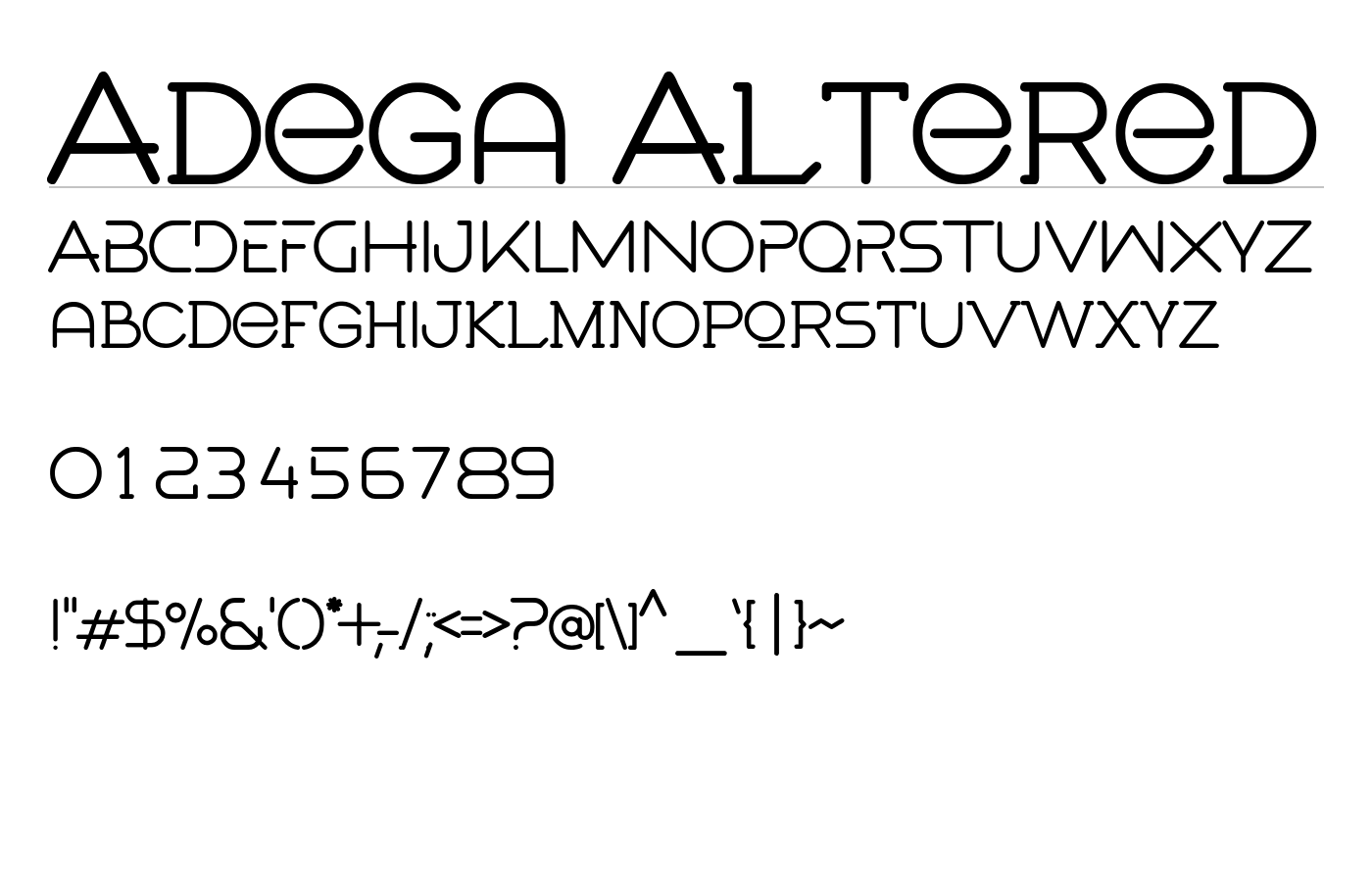
Adega Altered is a sleek, modern sans serif font characterized by its geometric shapes and thin, consistent strokes. The font features an open, airy design with unique letterforms that combine sharp angles and smooth curves, giving it a contemporary and elegant feel. Ideal for stylish logos, editorial headlines, and creative branding, Adega Altered adds a distinctive, refined touch to any design that seeks a fresh, sophisticated look.
Adega Altered Font
About Adega Altered Font
| Font family | Adega Altered Font |
| Designer | Anisio Dega |